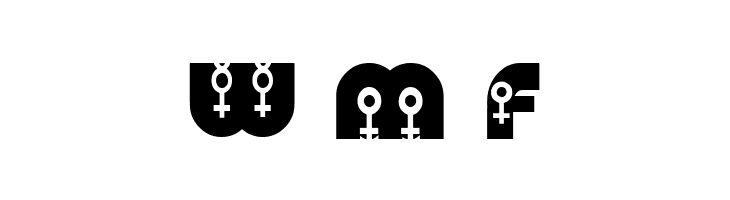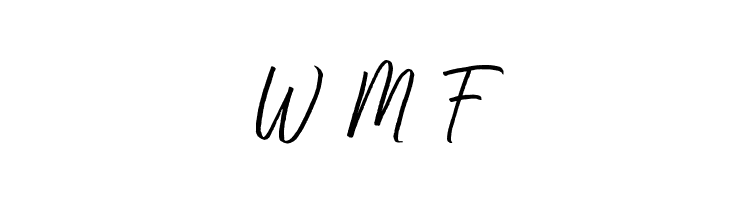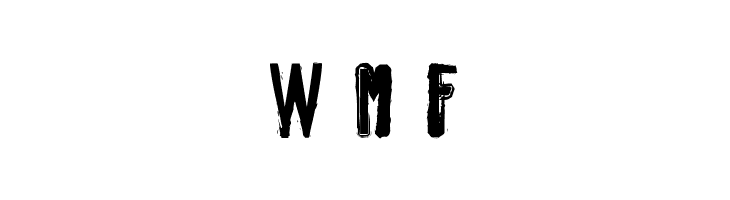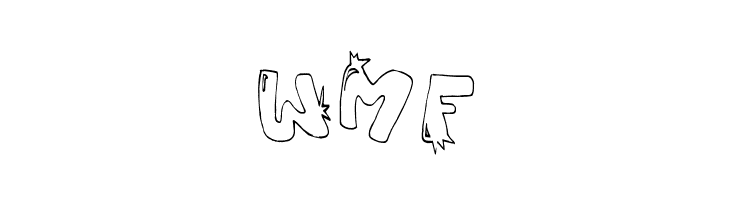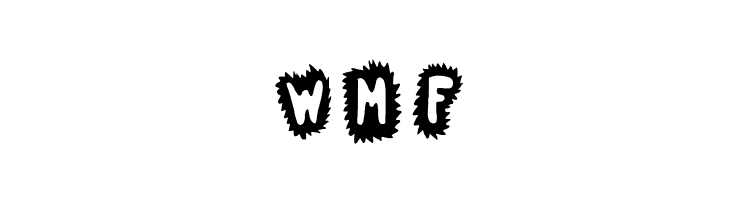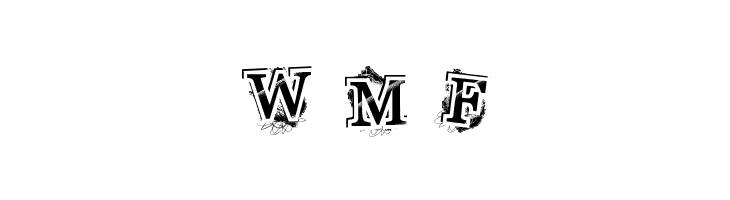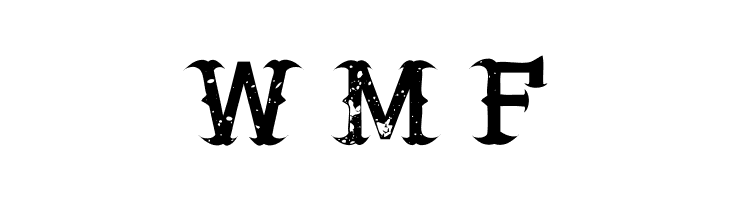
• Highnorth
A dynamic, cursive font with fluid, interconnected strokes.
• HighSales
A bold, playful font with jagged outlines and rounded characters.
• HighStyle
A bold, decorative font with a grunge texture and thick outlines.
• Hijrah_DEMO
A bold, Gothic-inspired font with intricate detailing and sharp, angular lines.
• Him_Her_It
A bold, decorative font featuring gender symbols within each character.
• hint-retrò_free-version
A bold, geometric font with a modern, tech-inspired design.
• hint-retrò-grunge_free-version
A rugged, distressed font with a bold, hand-drawn appearance.
• hiphopbarbie
A bold, graffiti-inspired font with playful, cartoonish elements.
• Hippotail
A dynamic and elegant cursive script font with fluid letterforms.
• Hire a Cowboy
A bold, distressed font with a rugged, western-inspired aesthetic.